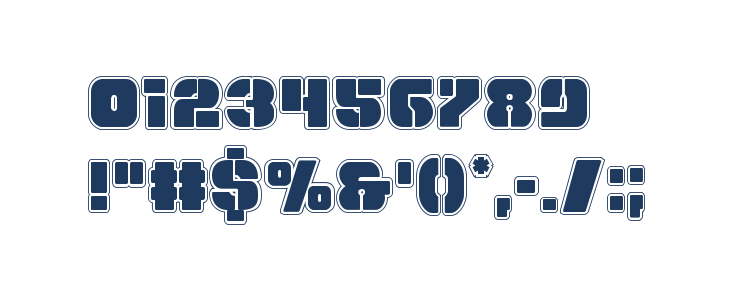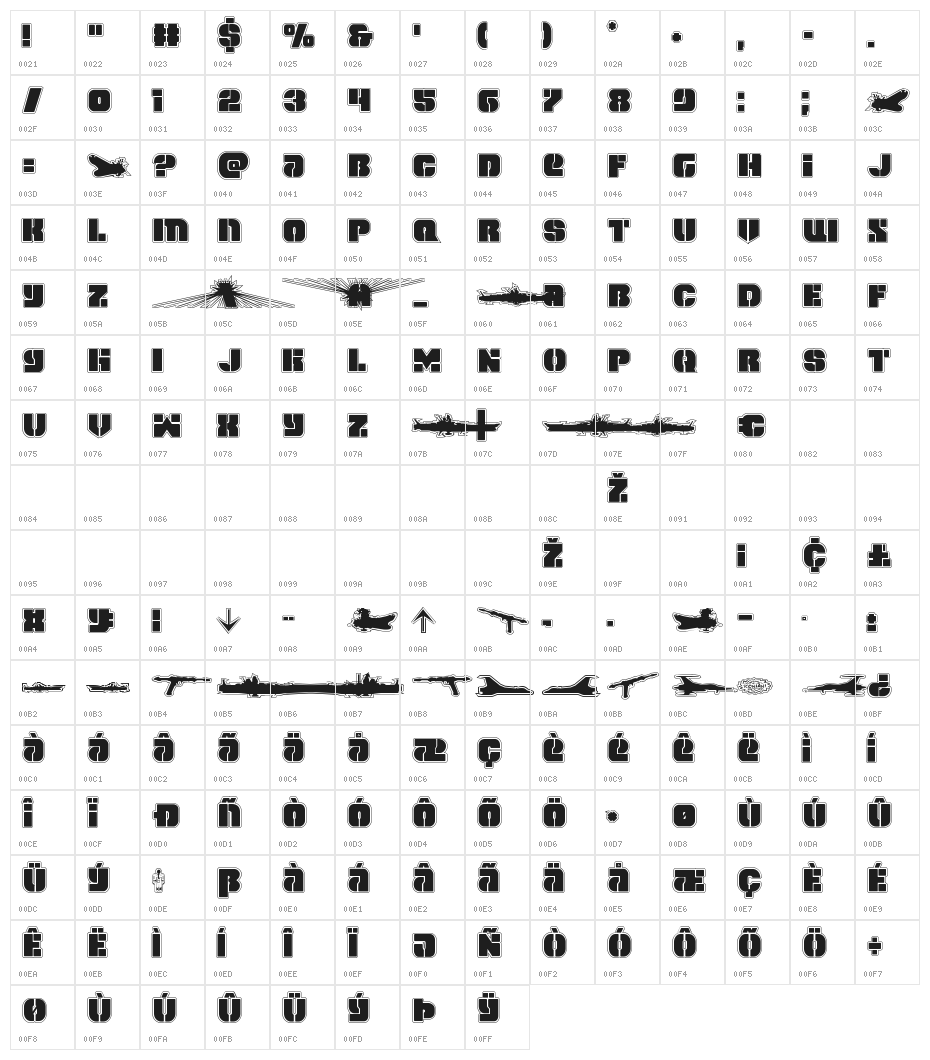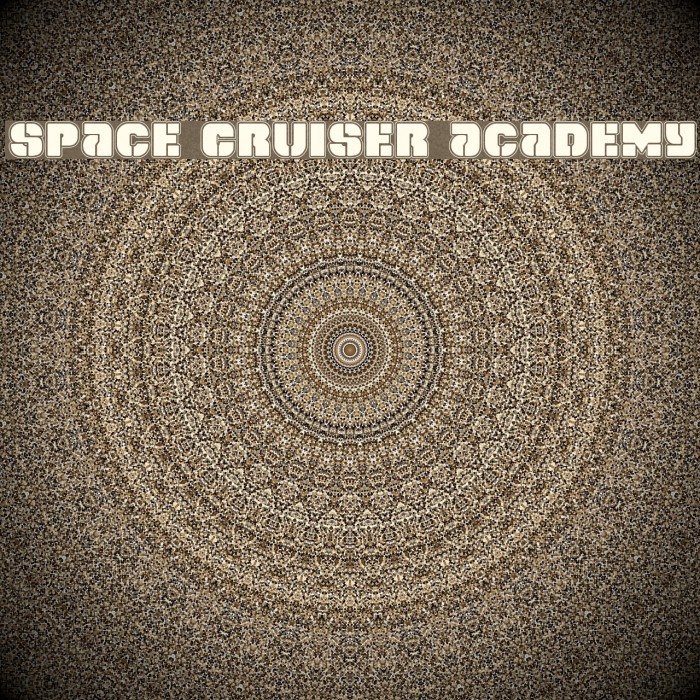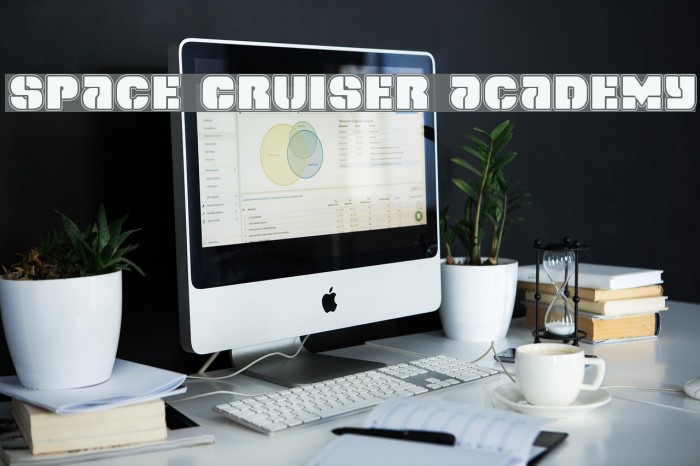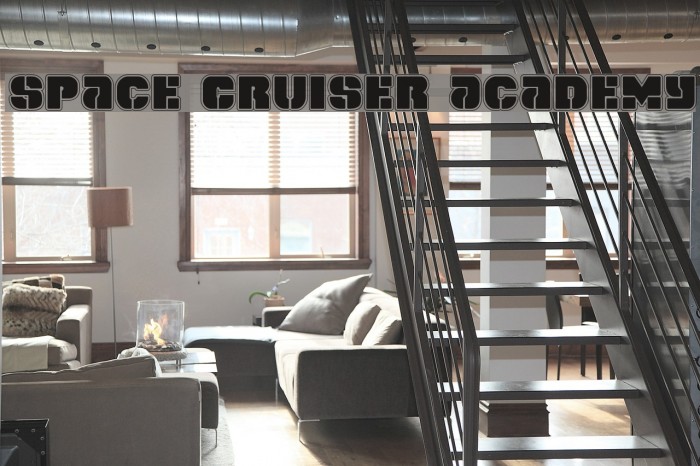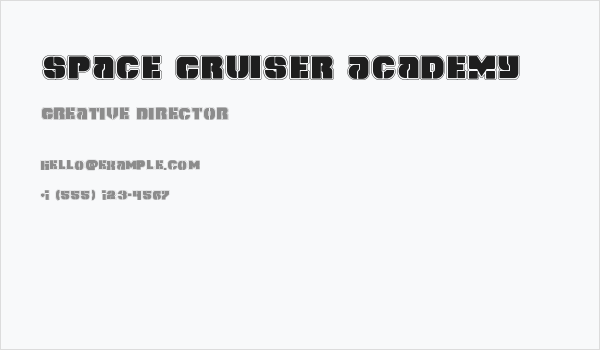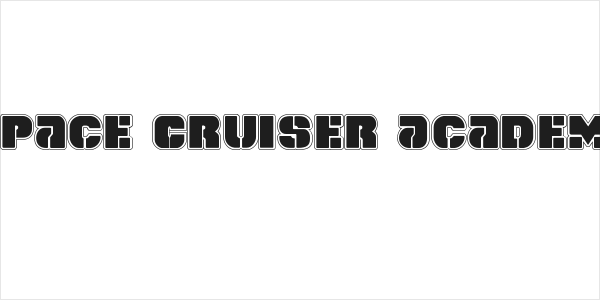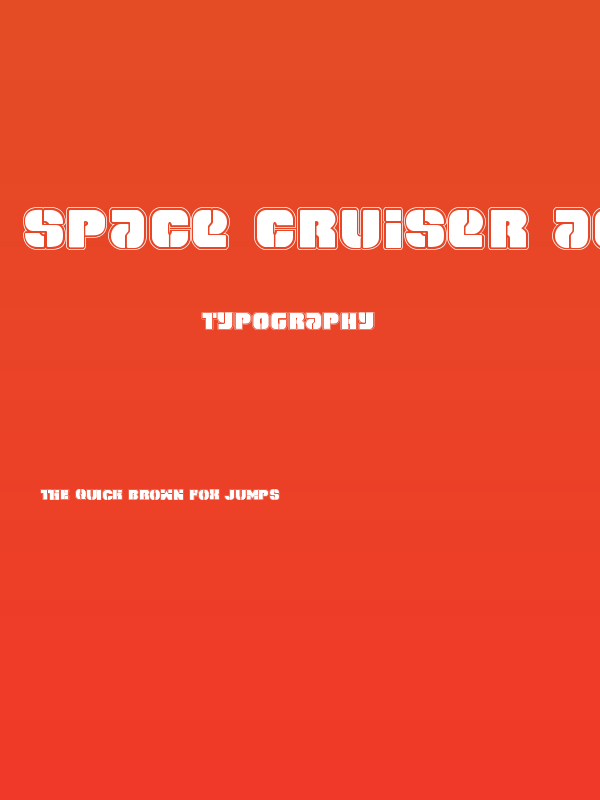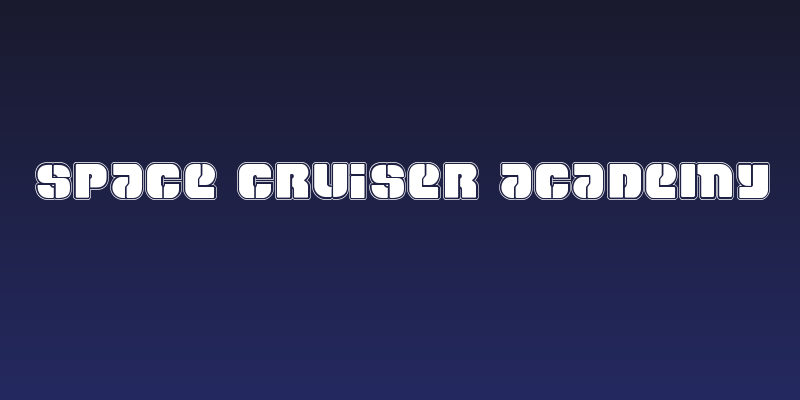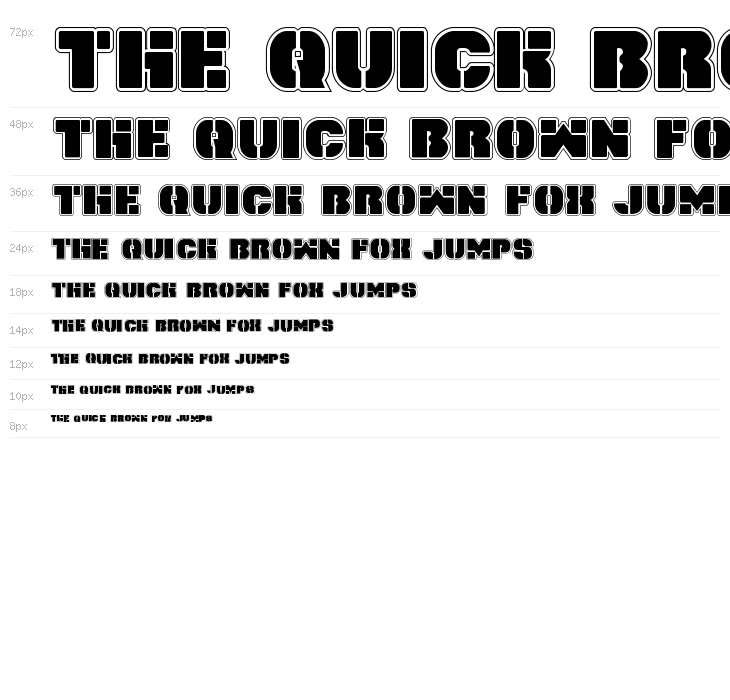
Space Cruiser Academy Font
Space Cruiser Academy Description
This font features a bold, futuristic design with thick, blocky characters that are perfect for making a strong visual impact. The letters are uniformly wide, with a distinct geometric style that incorporates rounded edges and sharp angles, creating a sense of movement and dynamism. The numbers and special characters follow the same bold and structured design, ensuring consistency across all elements. This font is ideal for projects that require a modern, space-age aesthetic, such as sci-fi themed designs, video game titles, or technology branding.
| Proposed Projects | Ideal for sci-fi designs, video game titles, technology branding, and futuristic posters. |